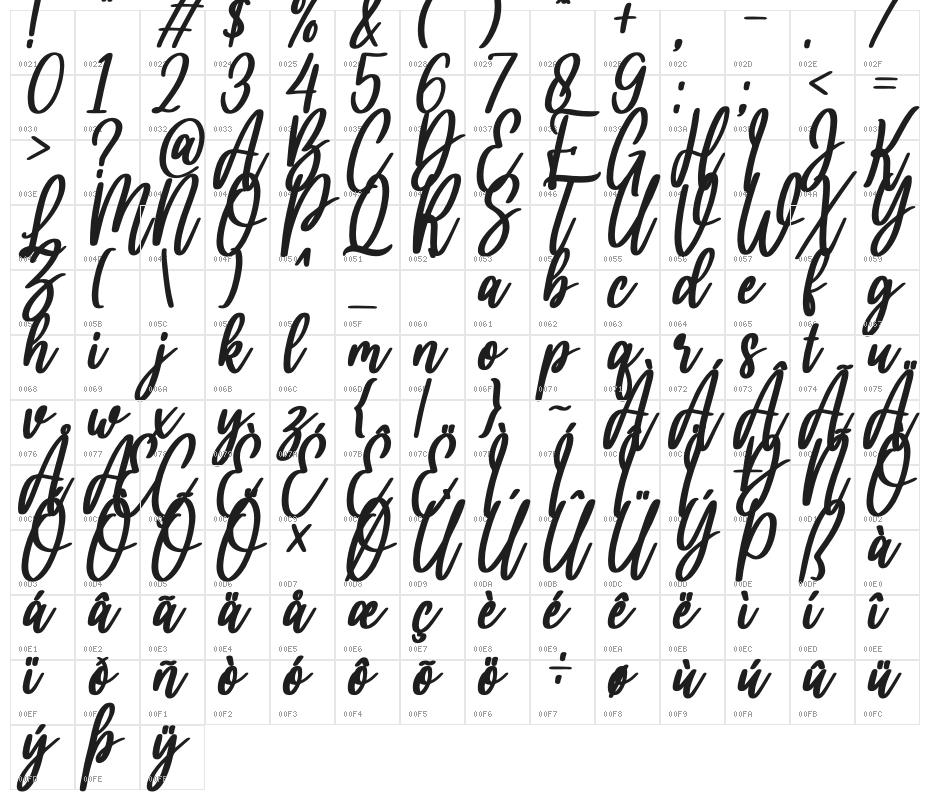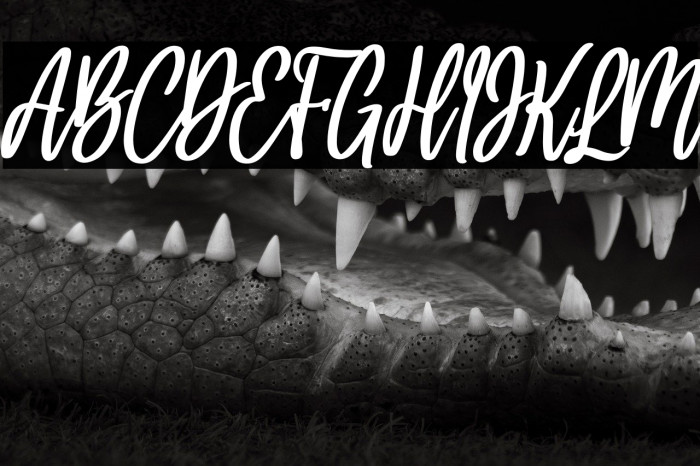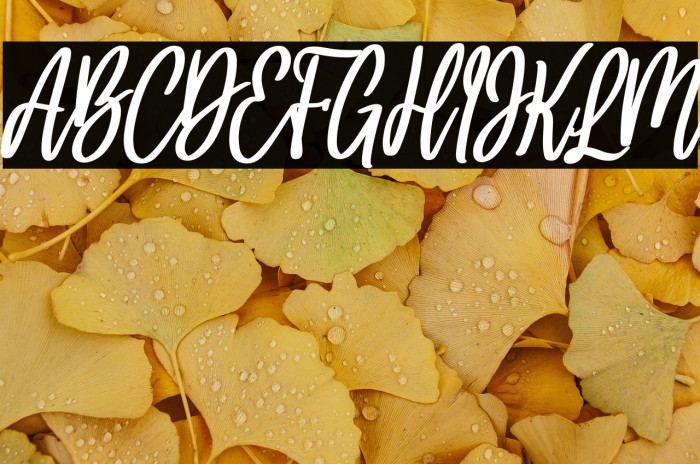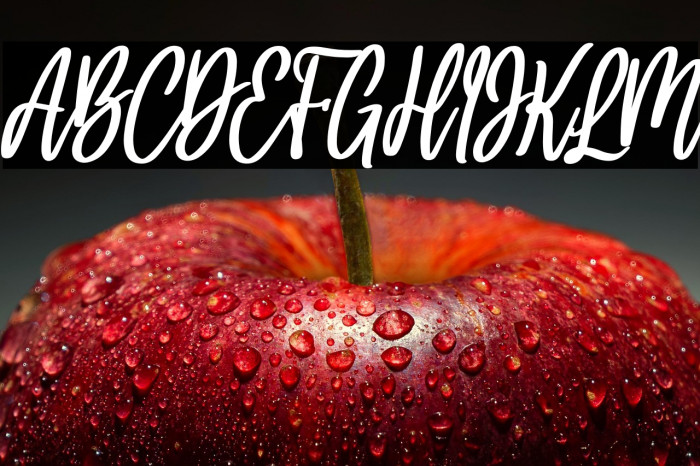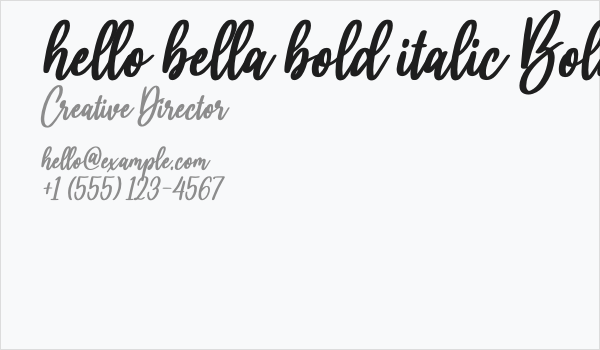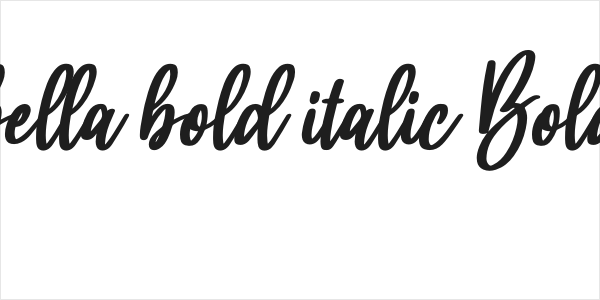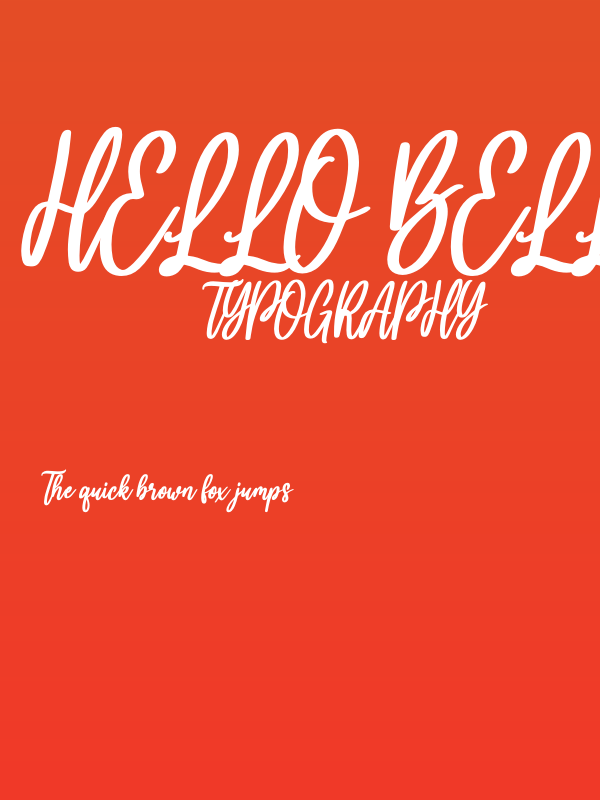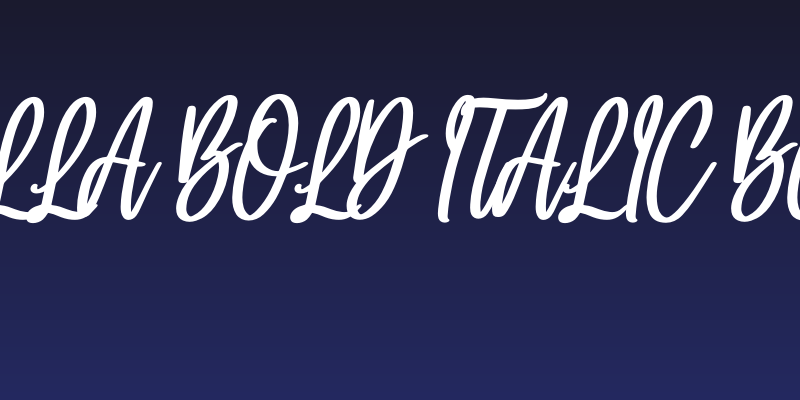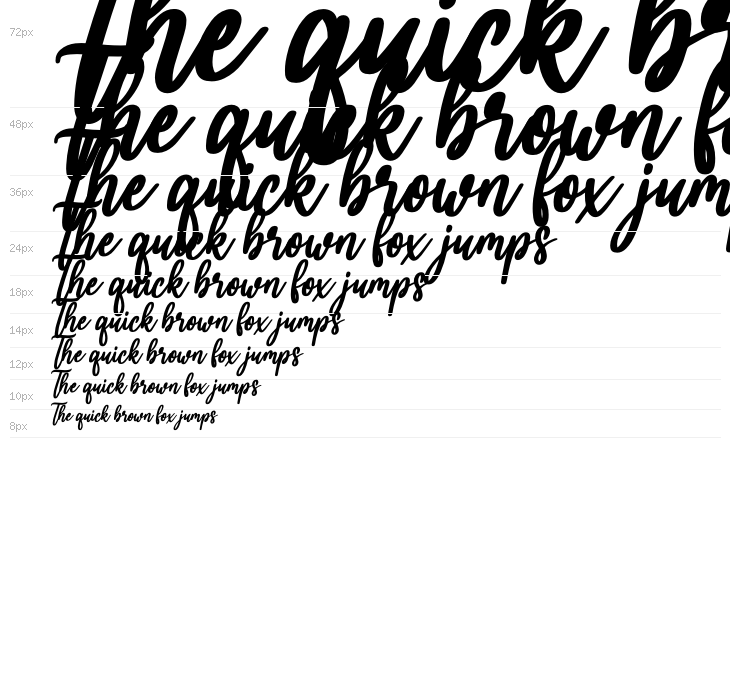
hello bella bold italic Bold Italic Font
hello bella bold italic Bold Italic Description
A bold and italic script font with a handwritten style, featuring smooth, flowing curves and a modern aesthetic.
| Overall Style | Modern, Decorative |
| Use Case | Logos, Headlines, Decorative text |
| Proposed Projects | Invitations, branding, social media graphics, and posters. |